Best Script Fonts on Creative Market for Etsy Sellers & Designers (2026)
Script fonts are the bestselling font category on Creative Market — and for good reason. A single high-quality script font can transform a wedding invitation, a digital planner cover, a branding kit, or a social media template from forgettable to distinctive. The problem is that most Etsy sellers and designers rely on the same handful of free script fonts that every other shop is already using. Paid script fonts from Creative Market come with full commercial licences and a level of craftsmanship that free alternatives rarely match.
This guide covers the three best script fonts on Creative Market in 2026 — selected for style quality, legibility at small sizes, commercial licence terms, and versatility across the Etsy product types that actually sell.
What to look for in a commercial script font: A strong script font for Etsy use needs to be legible at body size, include OpenType alternates for natural-looking letterforms, come with a full commercial licence covering digital products and resale, and pair cleanly with a sans-serif for body text. All three fonts in this guide meet those criteria.
Best Script Fonts on Creative Market — Reviewed
Best Seller Font Bundles — Script Collection by Teweka
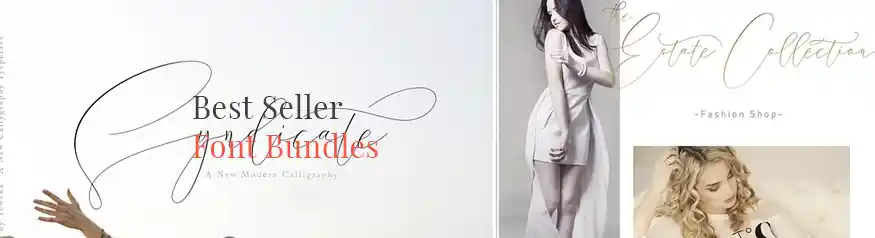
This is Creative Market’s highest-rated script font bundle — a curated collection of the seller’s bestselling script styles in a single discounted purchase. The bundle covers the full spectrum of script moods: flowing modern calligraphy, casual handwritten, and elegant formal scripts. Each font includes OpenType alternates, ligatures, and multilingual support, giving you the variety to match any project tone without purchasing fonts individually.
The Best Selling Font Bundle — Script Styles by Haksen
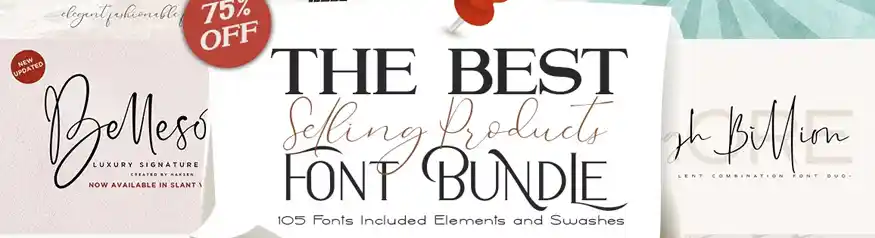
Haksen is one of Creative Market’s most consistent script font sellers — and this bundle collects the most commercially versatile styles into a single download. The script fonts lean toward the elegant and romantic end of the spectrum, making them particularly well-suited to wedding stationery, luxury branding, and feminine lifestyle product design. The letterforms are smooth, the baseline variation is natural without being erratic, and the fonts remain highly legible even at smaller print sizes.
Additionally, each font in the bundle includes a full set of OTF alternates — meaning you can swap individual letters for stylistic variants that make your headline text look hand-customised rather than typeset. This is the detail that separates a professional-looking Etsy product from a generic one.
Explore Script Fonts on Creative Market →Quiet Attempt — Love Handwritten Font by Struvictory.art
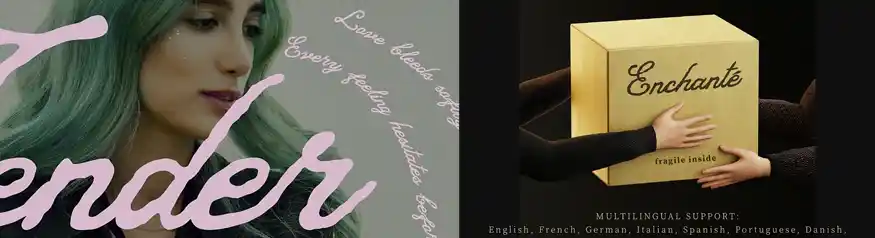
Quiet Attempt is the most distinctive new script font on Creative Market in 2026 — designed with a deliberately intimate, personal feel that is hard to replicate with generic free fonts. Inspired by love notes and quiet moments, its letterforms carry a natural pen-pressure variation that makes typeset words look genuinely hand-lettered. The result is a font that works beautifully for quote art, journal covers, greeting card copy, and any product where warmth and authenticity matter more than formality.
Furthermore, Quiet Attempt pairs exceptionally well with clean sans-serif fonts for product labels, planner layouts, and social media carousel graphics — giving you a high-contrast type pairing that reads professional while still feeling personal. Its commercial licence covers Etsy digital downloads, physical product printing, and client work.
- Printable quote art and affirmation card sets
Quick Comparison — Which Script Font Is Right for You